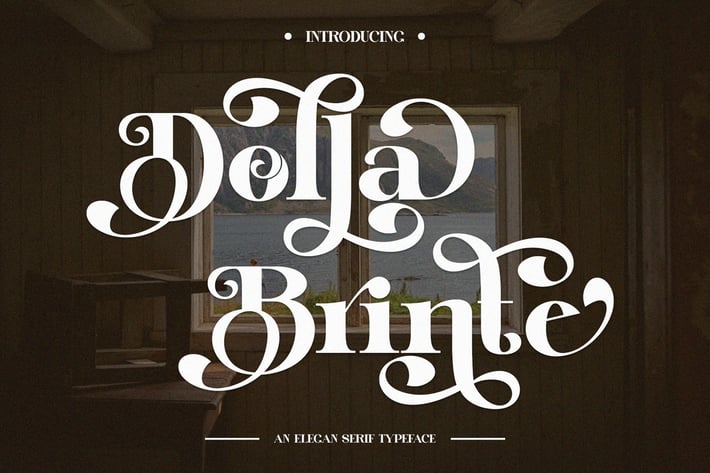
Dolla Brinte Elegant Serif Typeface
Dolla Brinte Elegant Serif Typeface inspired by the famous minimalist logo perfect for the purposes of designing templates, brochures, videos, advertising branding, logos, invitation, layout design, elegant crafting, beauty design and other
- ligature character
- alternate character
- Standard glyphs
- International Accent